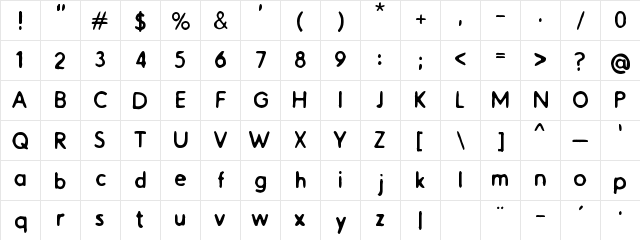
Catalogue Regular
Design Context for Catalogue Typeface
Catalogue takes a measured approach to typography — its balanced proportions and neutral character make it a reliable workhorse for both digital and print work.